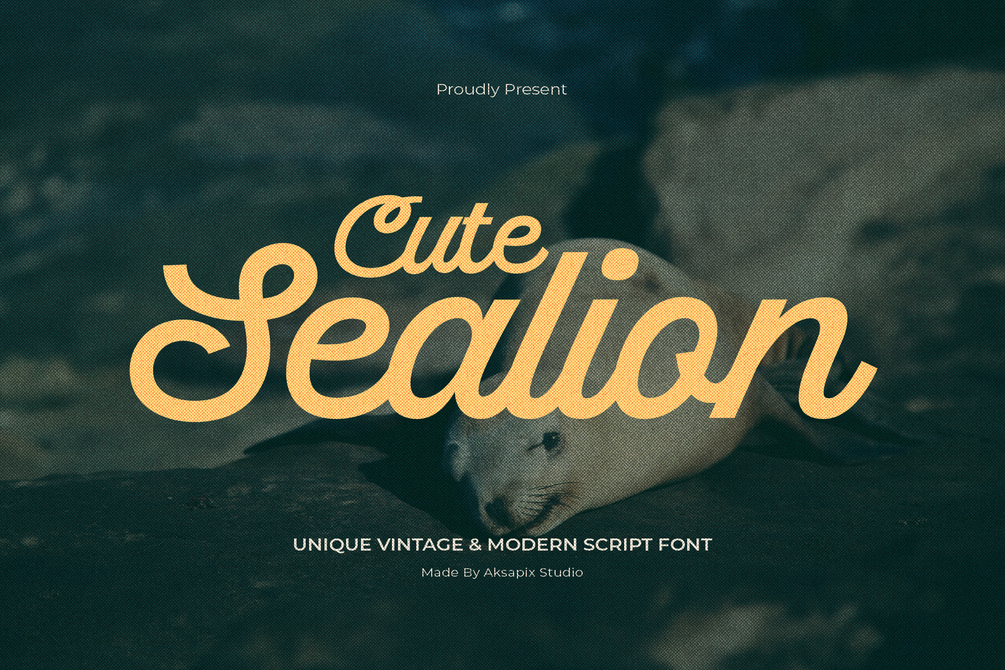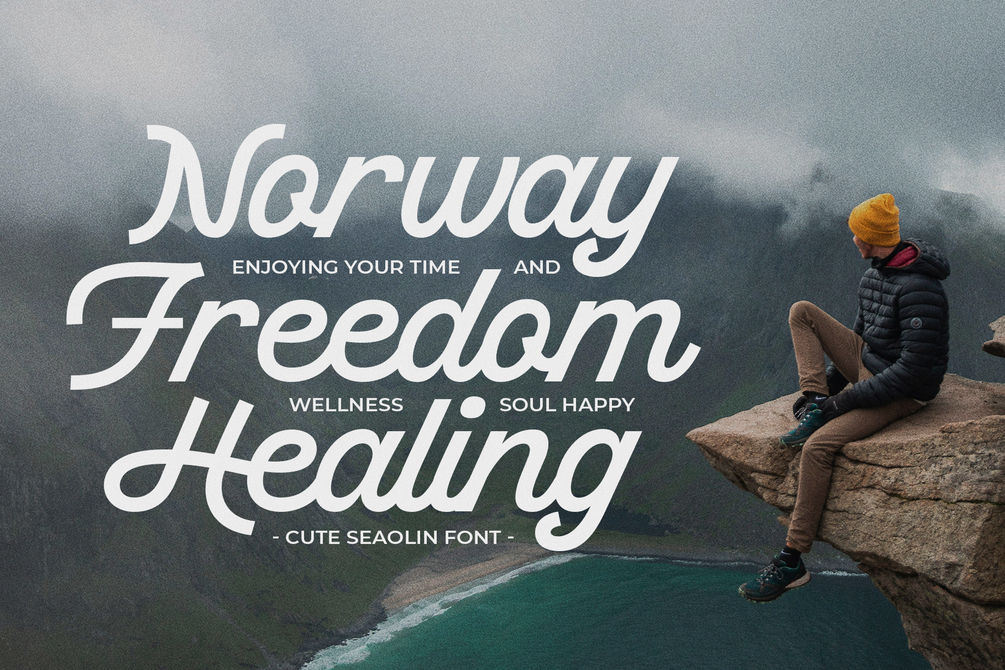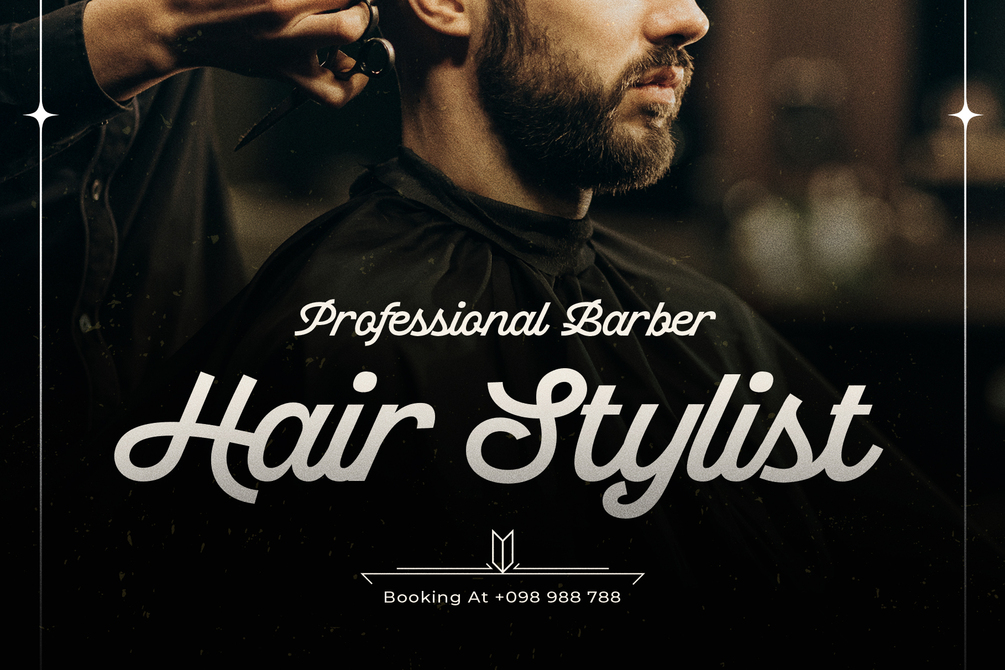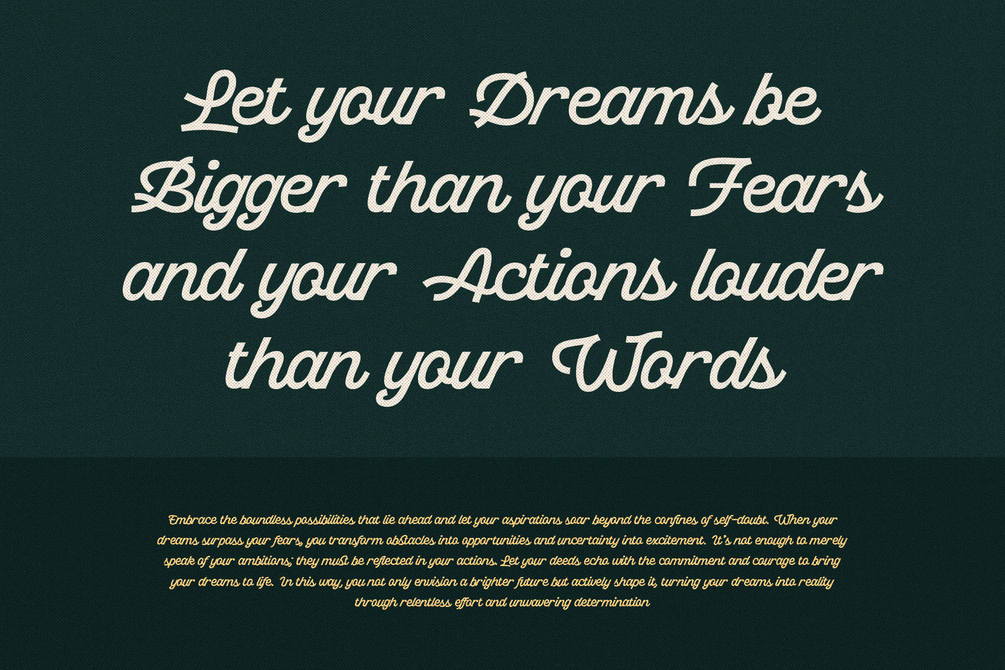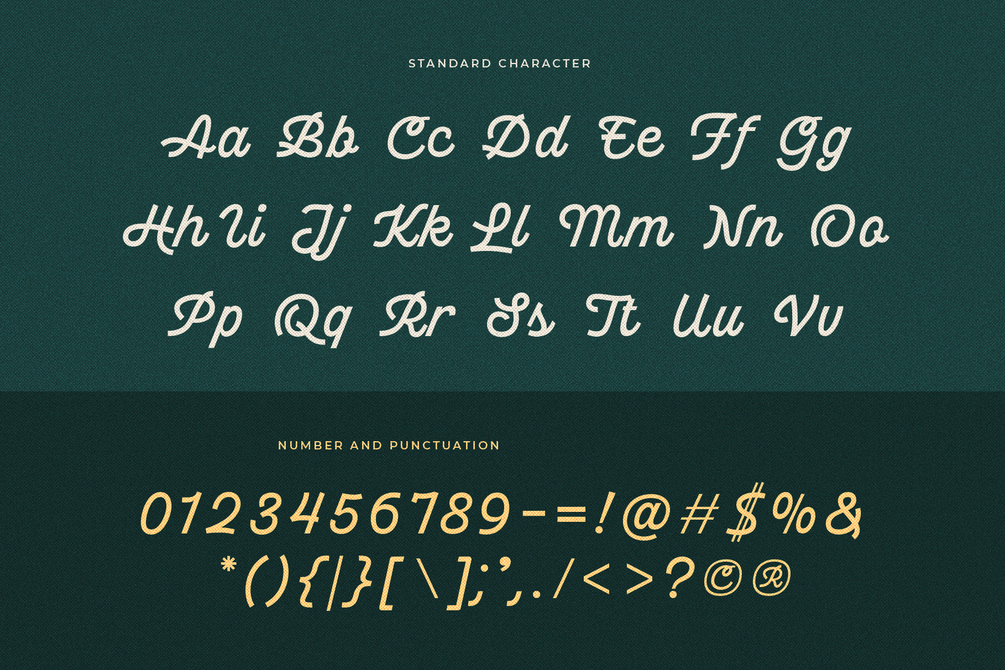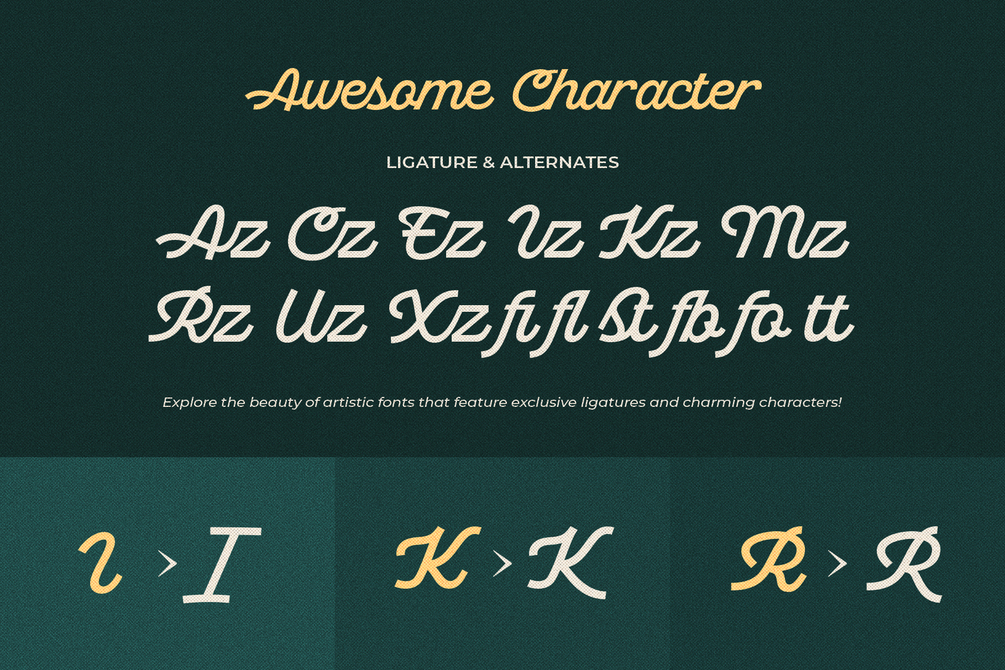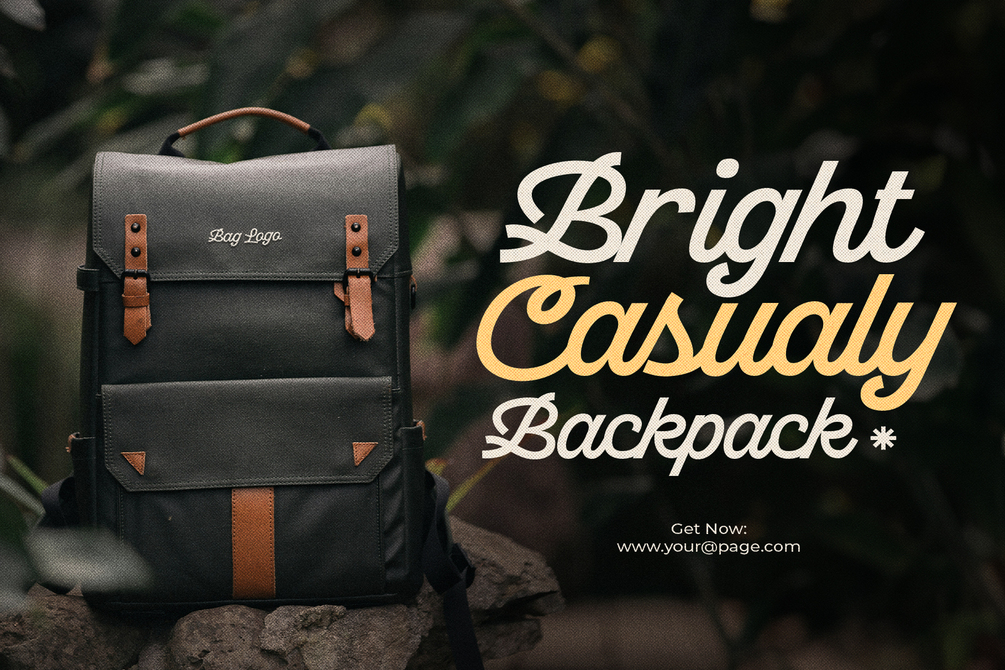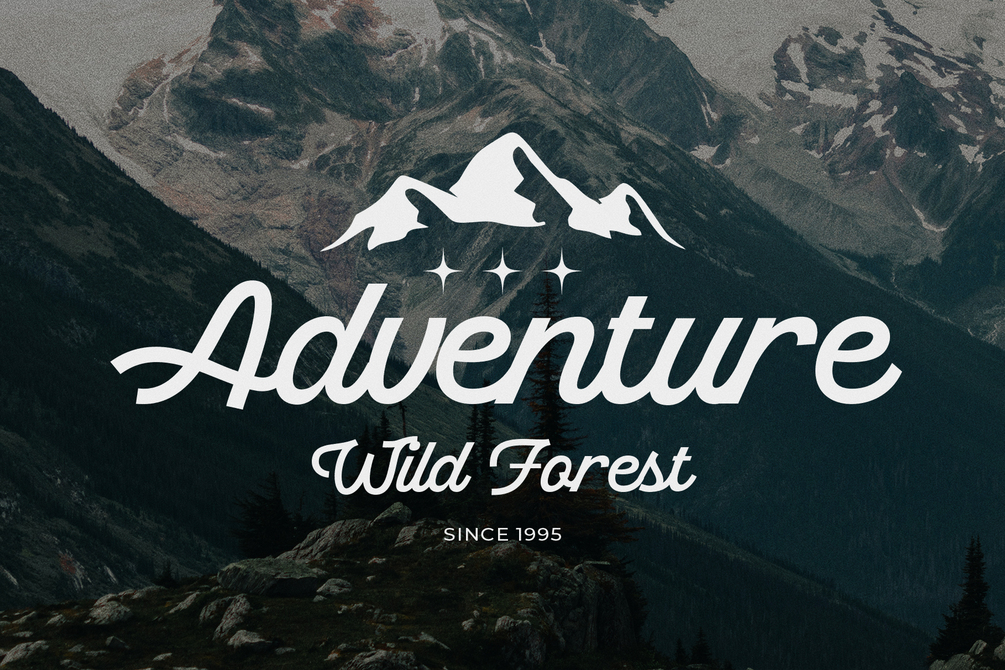
Cute Sealion - Unique Vintage & Modern Script Font
Introducing Cute Sealion - Unique Vintage & Modern Script Font, a delightful blend of vintage charm and modern elegance. This font features a full set of uppercase and lowercase letters, punctuation, several stylistic alternates, ligatures, and multilingual support. Its unique style makes it perfect for a wide range of design projects, adding a touch of whimsy and sophistication.
Features:
- Uppercase & Lowercase: Versatile character set for diverse typography needs.
- Punctuation: Complete set for polished and professional designs.
- Stylistic Alternates: Additional character variations for creative flexibility.
- Ligatures: Unique letter combinations for a more natural and connected look.
- Multilingual Support: Ensures compatibility with various languages and locales.
Perfect For:
- Vintage-Inspired Logos
- Elegant Invitations
- Stylish Branding
- Retro Posters
- Modern Social Media Graphics
Transform your designs with the whimsical and elegant charm of Cute Sealion - Unique Vintage & Modern Script Font. Ideal for vintage-inspired logos, elegant invitations, and stylish branding, this font brings a unique touch to every project.